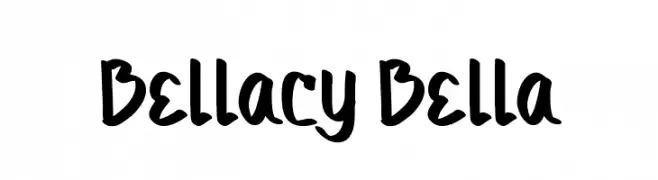
A bold, playful hand-drawn font with rounded edges and a whimsical style.
A handwritten font with elongated, elegant characters and a sophisticated style.
A bold, rounded font with a playful and energetic style.
A bold, Western-inspired font with sharp angles and thick strokes.
A bold, angular italic font with high contrast and a modern, dynamic style.
A classic serif font with high contrast and elegant strokes, perfect for formal use.
An elegant and artistic font with elongated letterforms and decorative elements.
A modern, elegant font with high contrast and decorative elements.
A playful, casual script font with smooth, flowing lines and a handwritten feel.
A bold, playful handwritten font with rounded, casual letterforms.